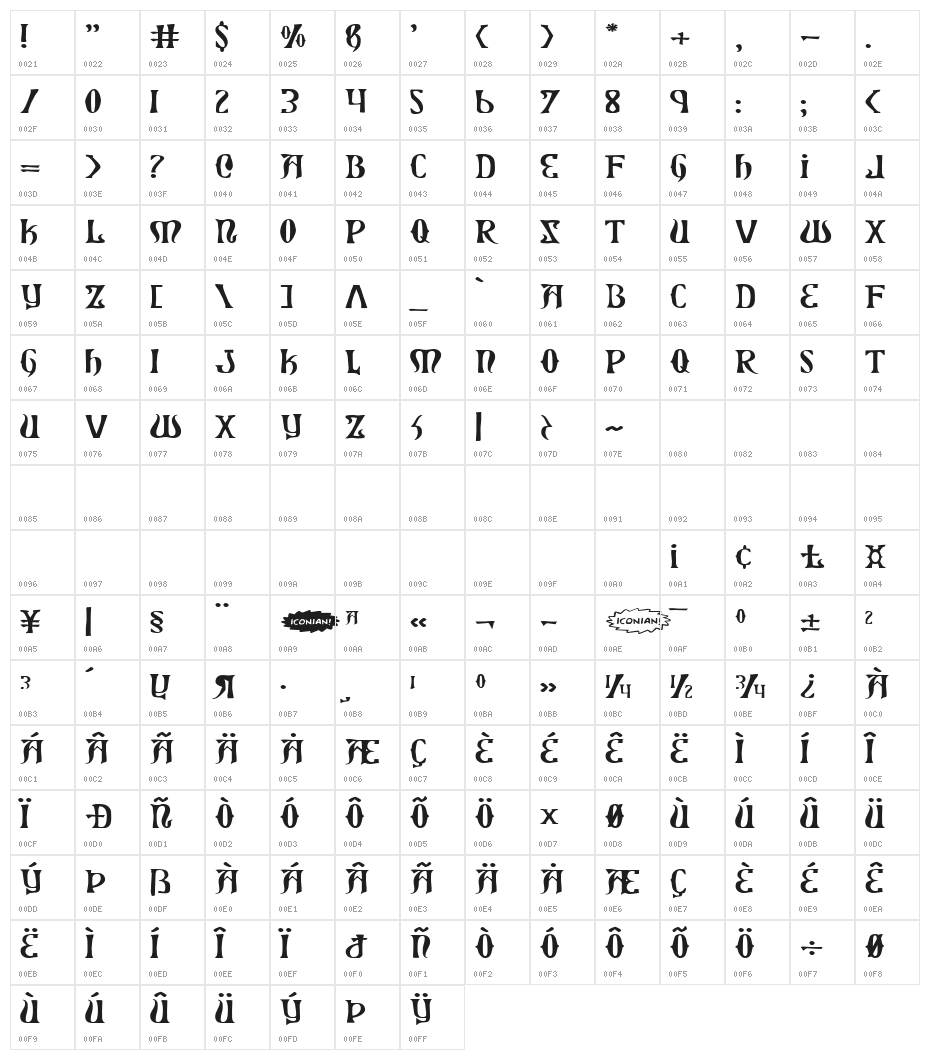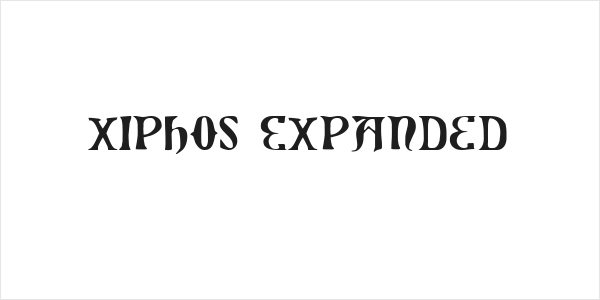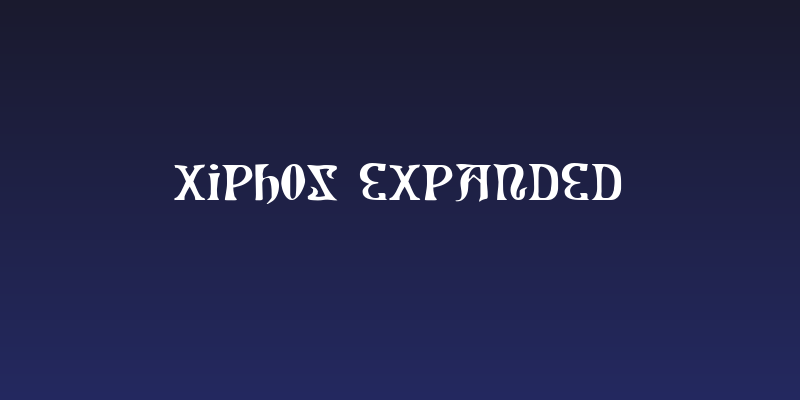
Xiphos Expanded Font
Xiphos Expanded Description
This font features a bold and dramatic style with a distinct medieval or gothic influence. The characters are uniquely crafted with sharp, angular edges and a sense of movement, giving them a dynamic and powerful appearance. The uppercase letters are particularly striking, with exaggerated serifs and intricate detailing that evoke a sense of historical elegance. The lowercase letters maintain the same stylistic elements, ensuring consistency throughout the typeface. Numbers and special characters are equally bold and expressive, making them suitable for impactful design work. The overall aesthetic is both decorative and commanding, ideal for projects that require a touch of historical or fantasy flair.
| Proposed Projects | Ideal for fantasy book covers, medieval-themed events, video game titles, and branding that requires a historical or gothic touch. |